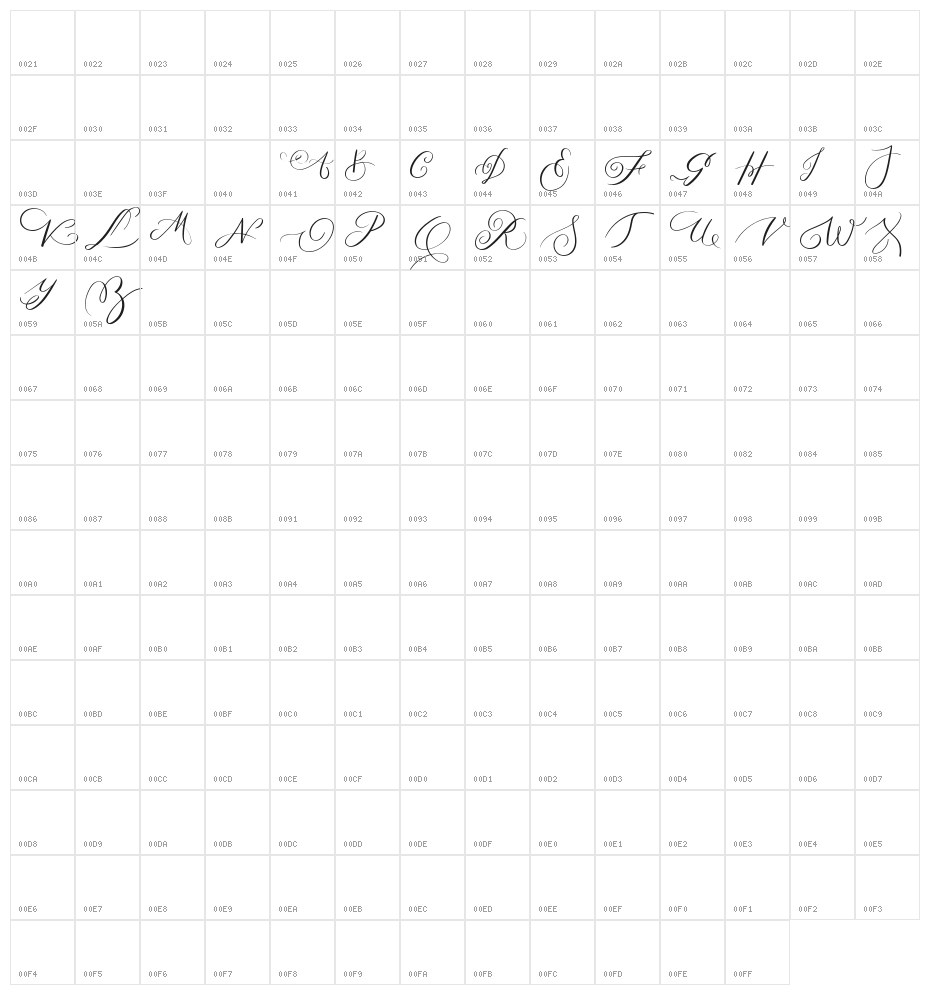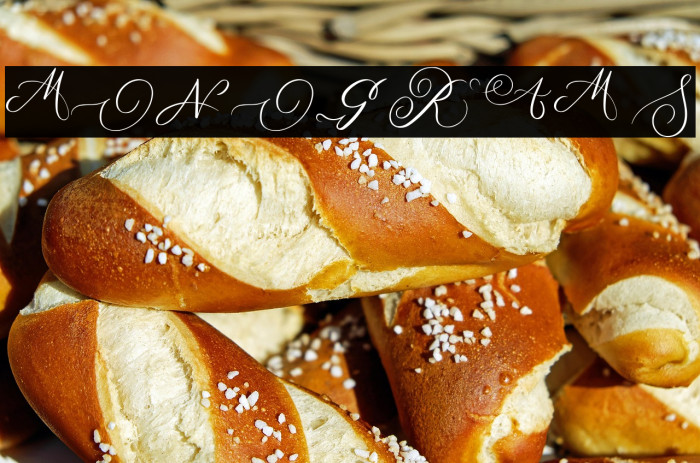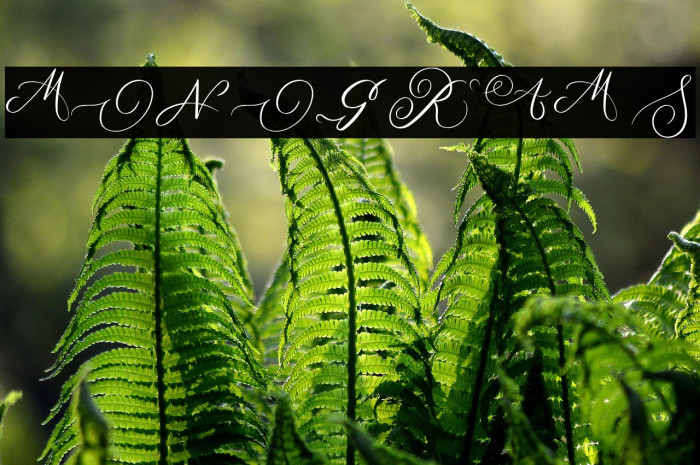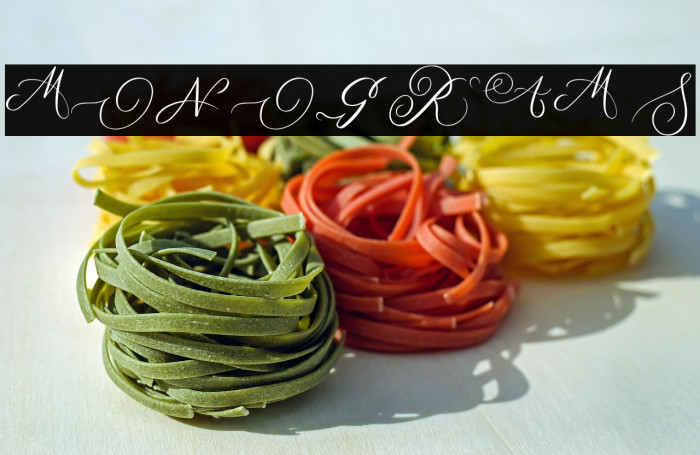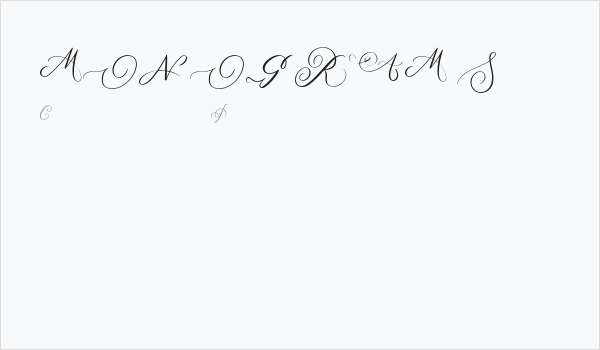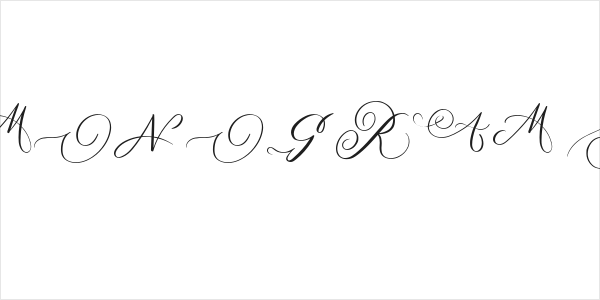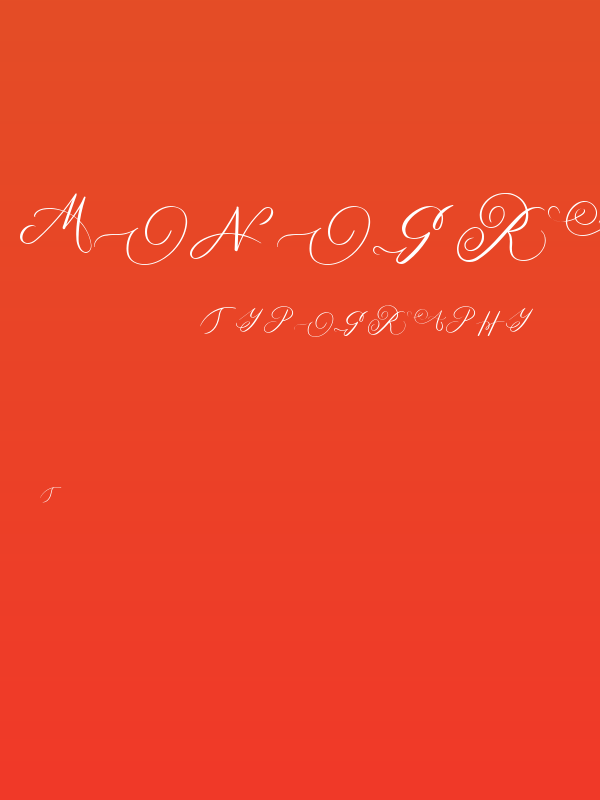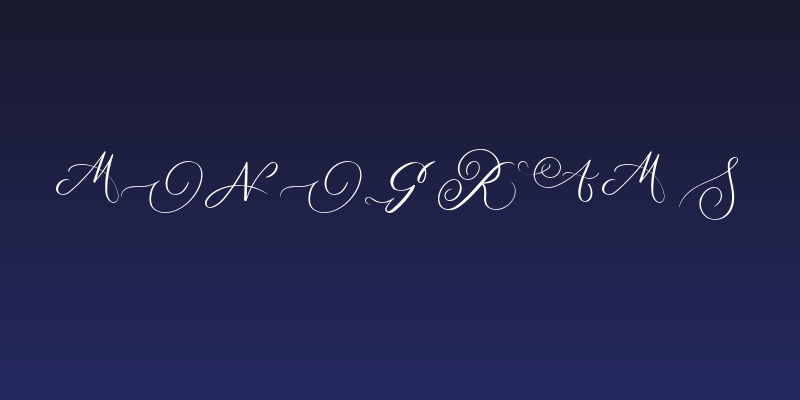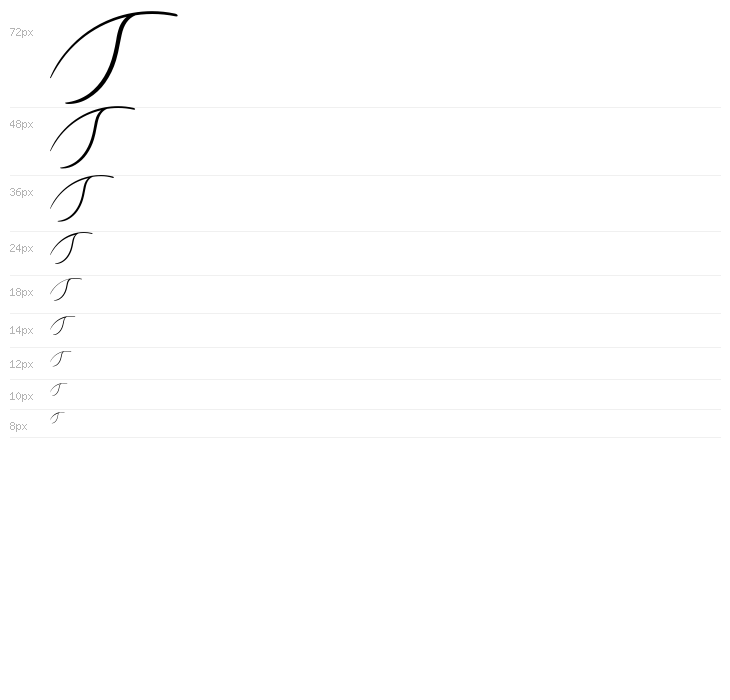
MONOGRAM S Font
MONOGRAM S Description
This elegant and sophisticated font features intricate swirls and flourishes, giving it a distinctly decorative and ornate appearance. Each letter is crafted with a high level of detail, making it ideal for creating monograms or other personalized designs. The font's flowing lines and curves evoke a sense of luxury and refinement, perfect for upscale branding or formal invitations. The characters are well-balanced, with a consistent style that maintains readability despite its decorative nature. This font is a beautiful choice for projects that require a touch of elegance and class.
| Use Case | Logos, Invitations, Decorative Text |
| Proposed Projects | Monograms, wedding invitations, luxury branding, formal event materials, personalized gifts. |